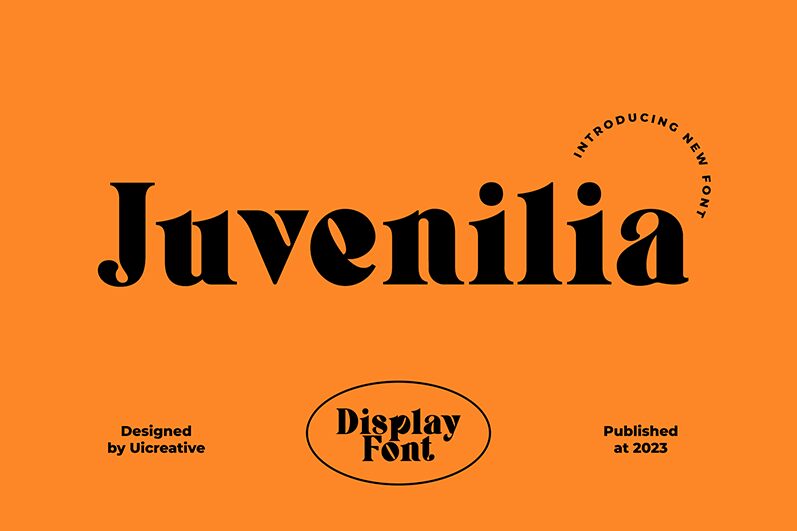
Juvenilia
Juvenilia, crafted by UI Creative, is a bold serif font that exudes both authority and elegance. Its thick strokes and pronounced serifs lend a sense of gravitas, making it perfect for headlines and titles that demand attention. The unique curvature in its design adds a touch of sophistication, ensuring that any text set in Juvenilia stands out with distinction.
This font's commanding presence makes it ideal for branding projects, editorial designs, and high-impact posters. Its bold nature ensures readability from afar while maintaining an aesthetic charm up close. Whether you aim to create striking advertisements or elegant book covers, Juvenilia provides the perfect blend of strength and beauty to elevate your design work.